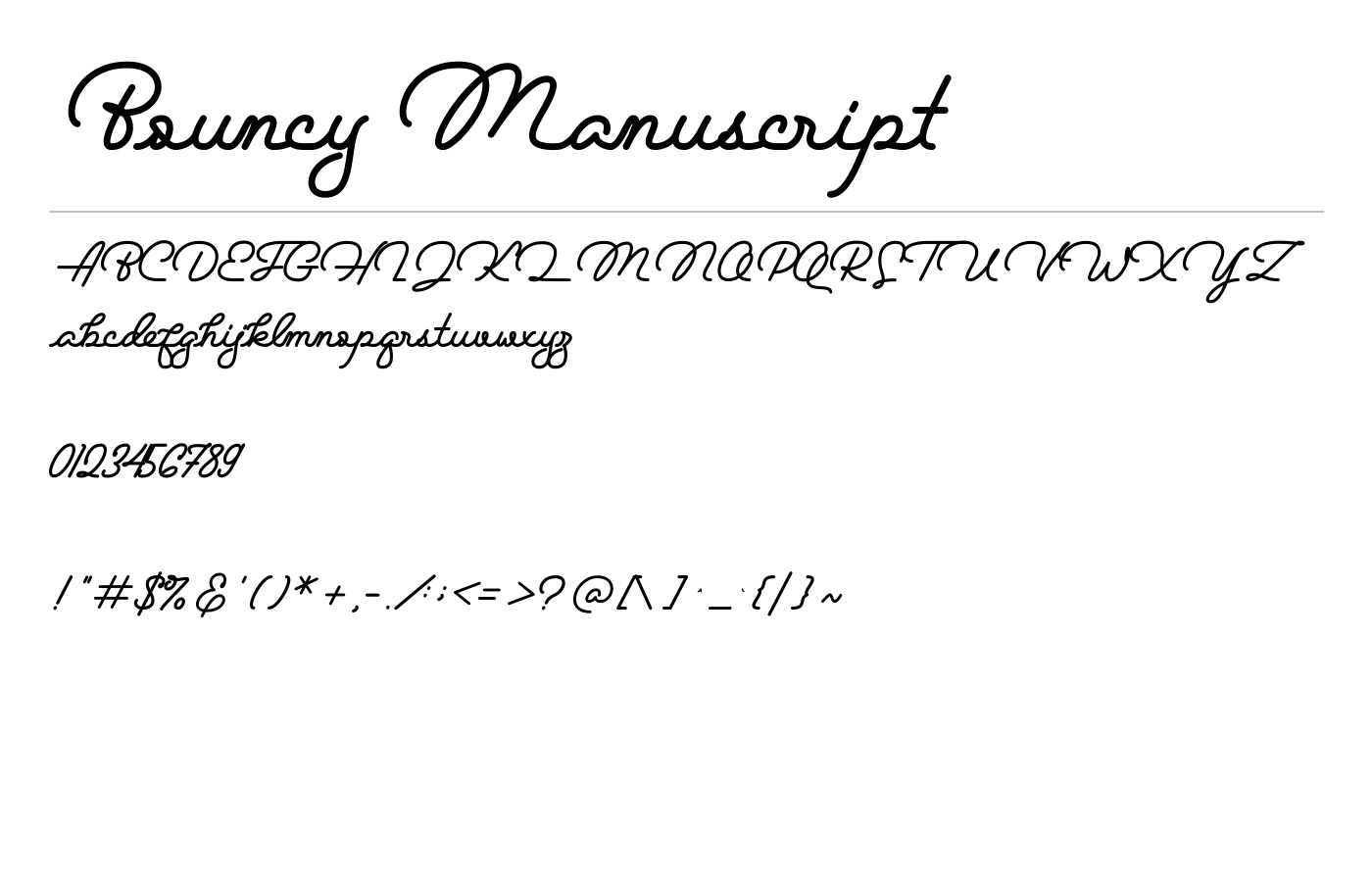
Bouncy Manuscript is a playful and elegant script font with a lively, handwritten feel. Its smooth, flowing strokes and slightly irregular baseline give it a charming, informal character, making it perfect for creative branding, invitations, and casual editorial designs. This font works well where warmth and personality are desired, adding a touch of friendliness without losing sophistication.
Bouncy Manuscript Font
About Bouncy Manuscript Font